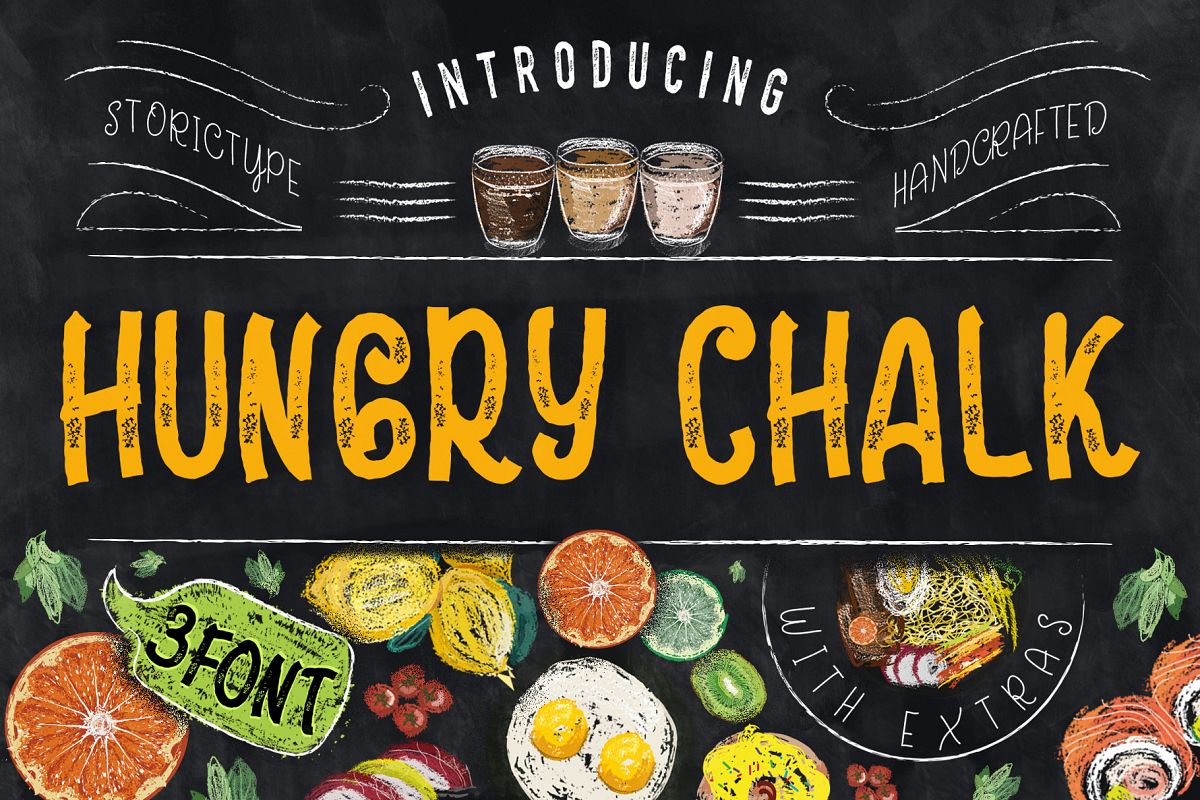
HungryChalk Typeface
Introducing HungryChalk Typeface
Here is new product, It’s called HungryChalk. HungryChalk inspired by many lettering on menu board the cafe, and it’s specially designed for the cafe and restaurant who use chalk concept, for lettering, logo, posters, etc. and also a touch of extras makes this font look stylist.